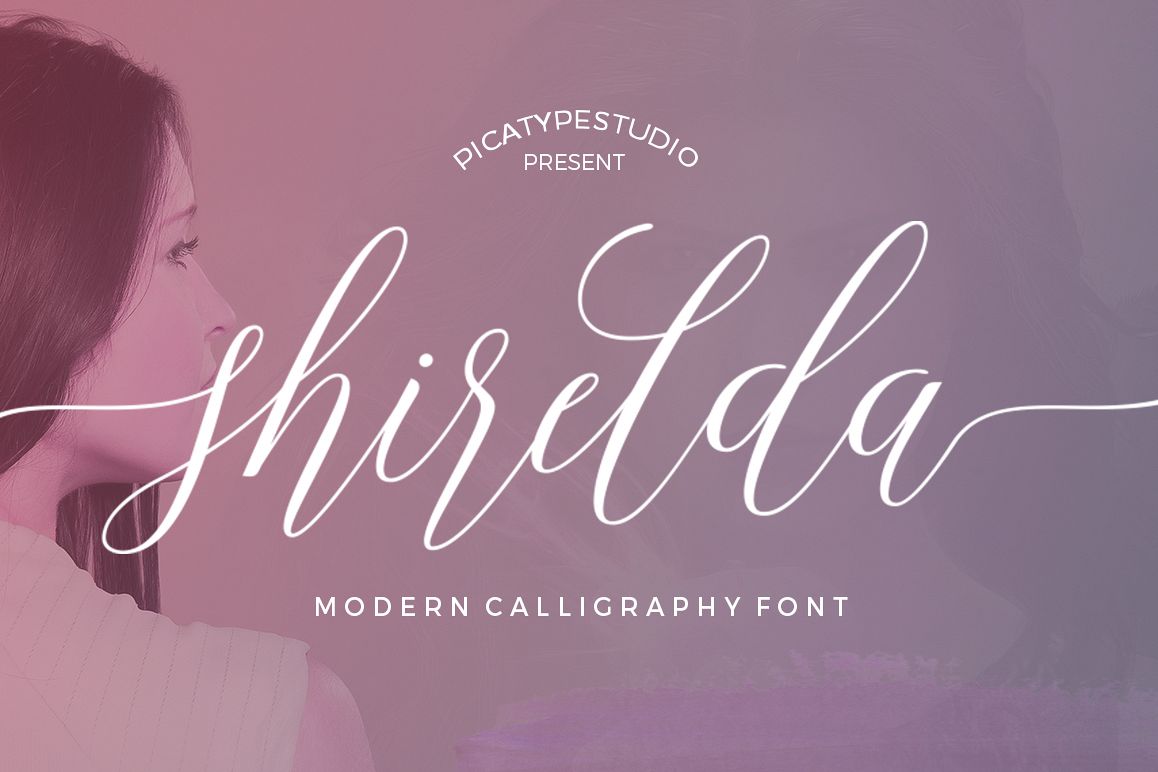
Shirelda Script
Say hello to **Shirelda Script** - A contemporary calligraphy, with a vintage feel, style calligraphy with moving baseline and elegant touch. That makes the font look fabulous! Can be used for various purposes.such as headings, signature, logos, wedding invitation, t-shirt, letterhead, signage, lable, news, posters, badges etc.
**Shirelda Script** features OpenType stylistic alternates, ligatures and International support for most Western Languages is included. To enable the OpenType Stylistic alternates, you need a program that supports OpenType features such as Adobe Illustrator CS, Adobe Indesign & CorelDraw X6-X7, Microsoft Word 2010 or later versions.